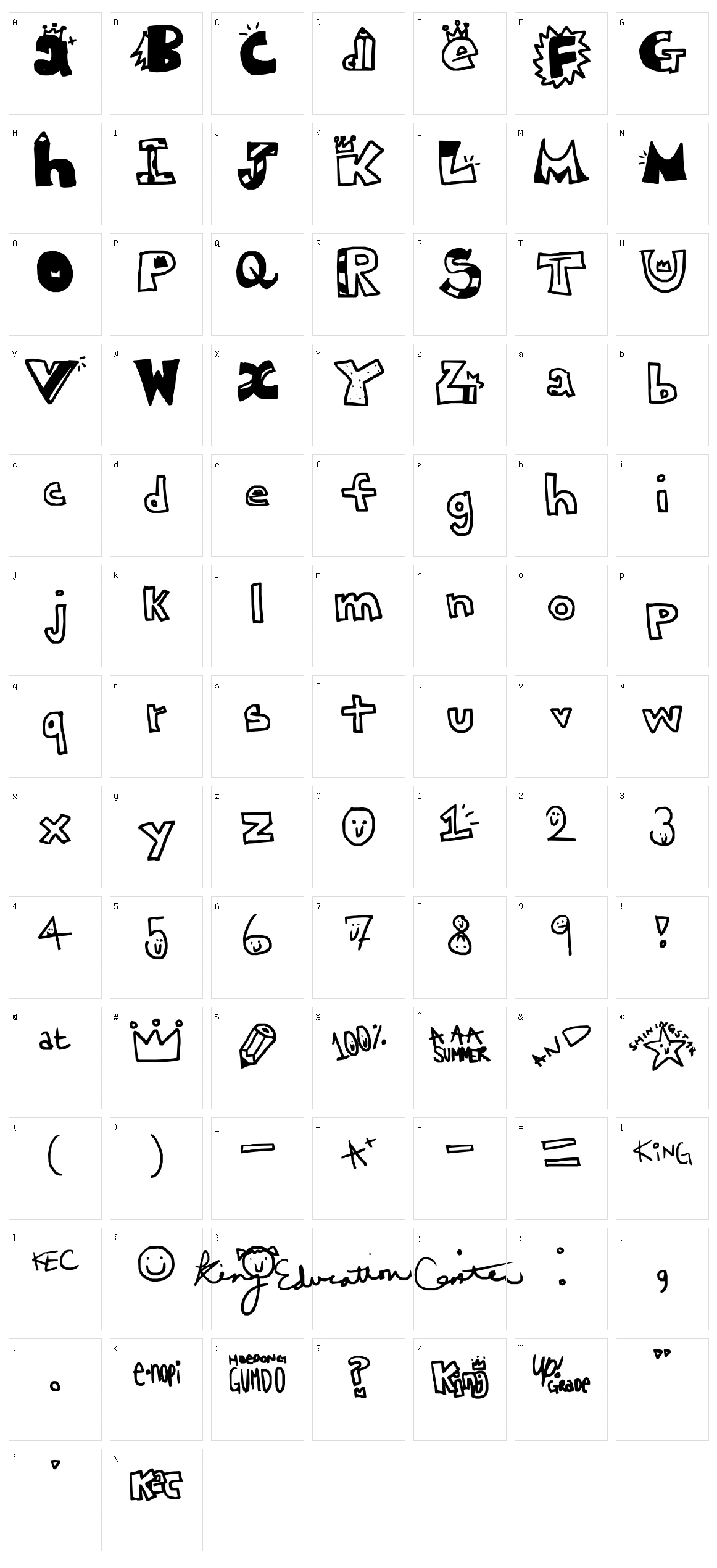
The free font King Education Center is carefully designed by Yujin Chun, showcasing a thoughtful balance of creativity and usability and falls under the Cartoon font style. When you download the ZIP file, it contains only 23.18 KB of font files, making it lightweight and quick to download. Please review the license details below to understand permitted usage and distribution rights. If license information is not available, we recommend using this font for personal projects only or contacting the author directly for commercial usage permissions.